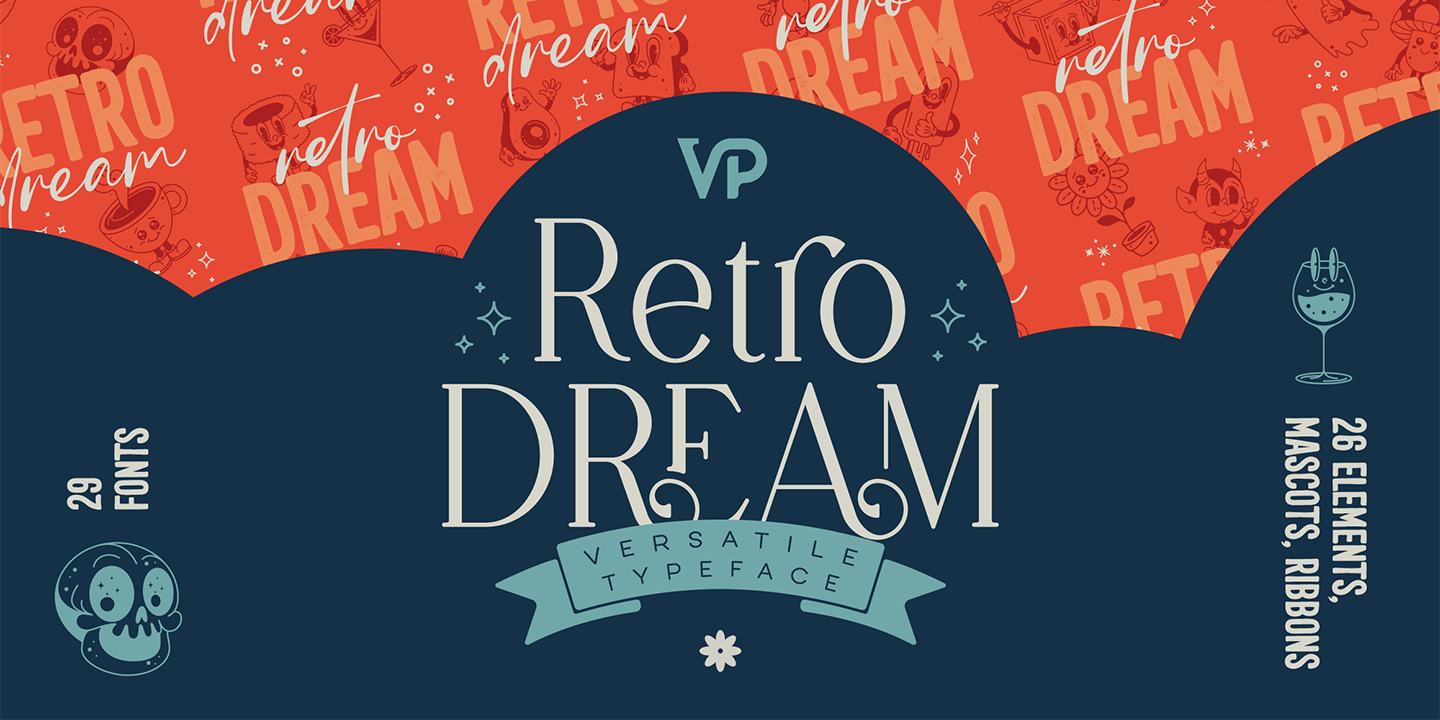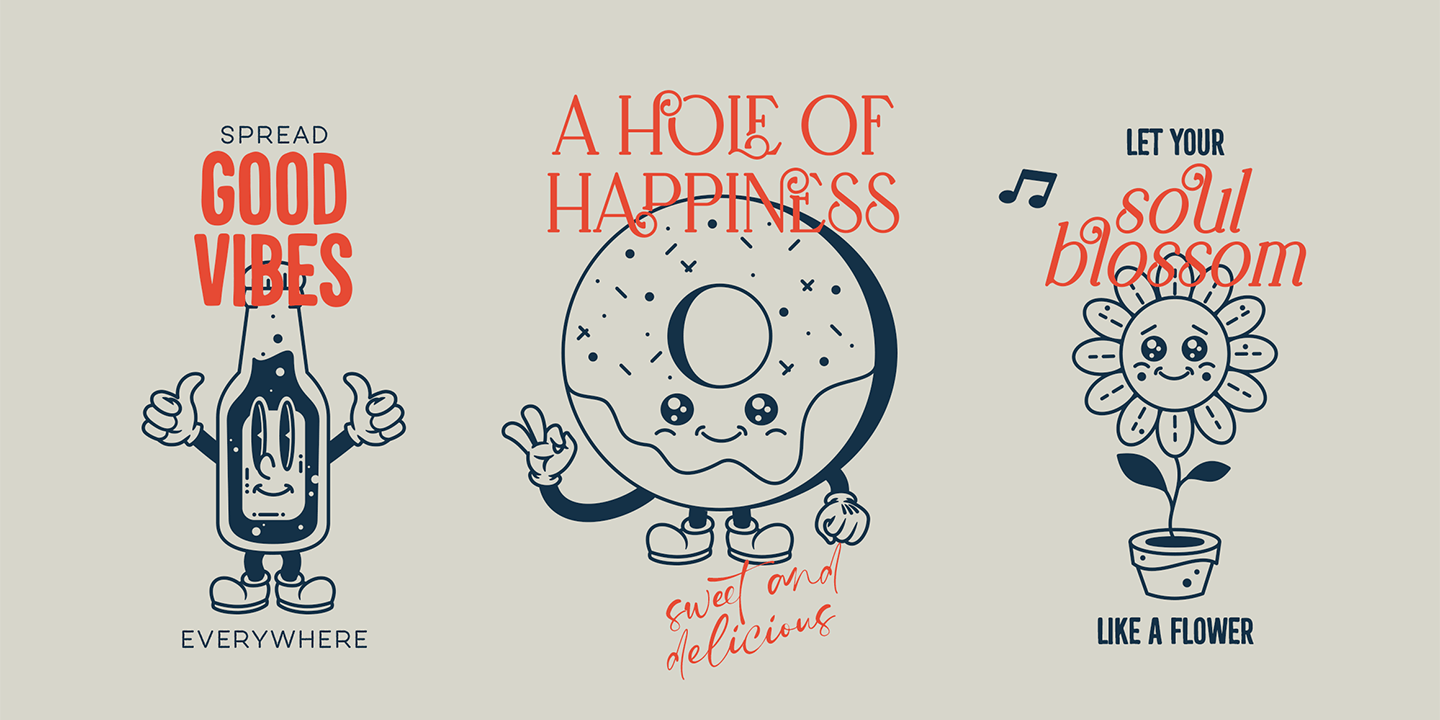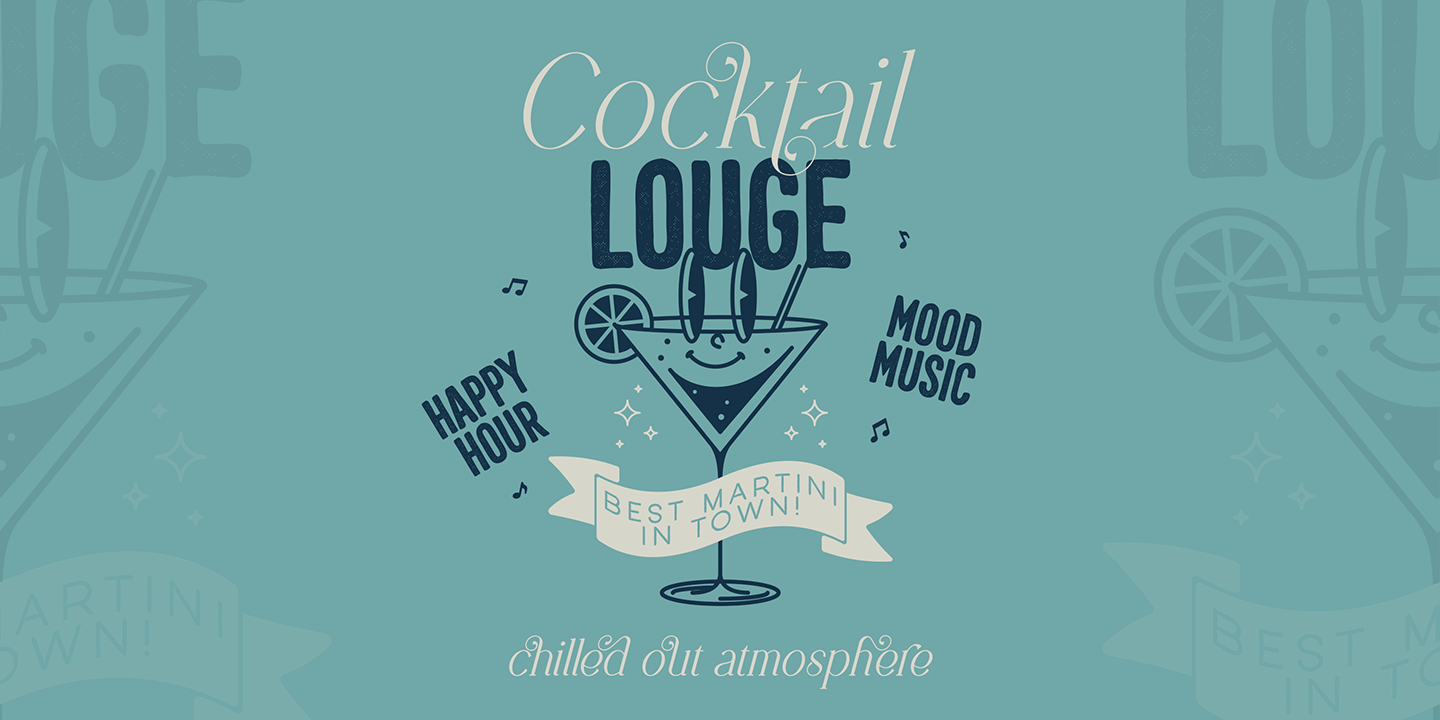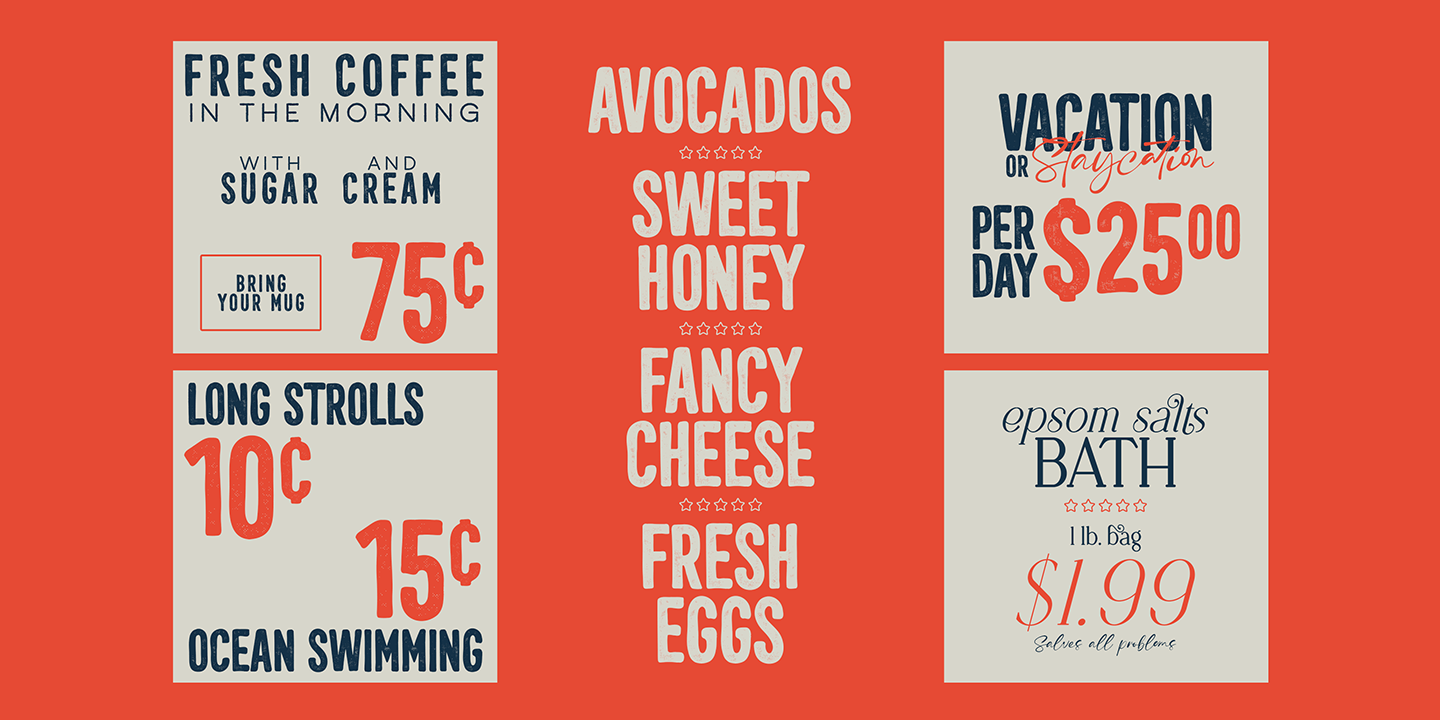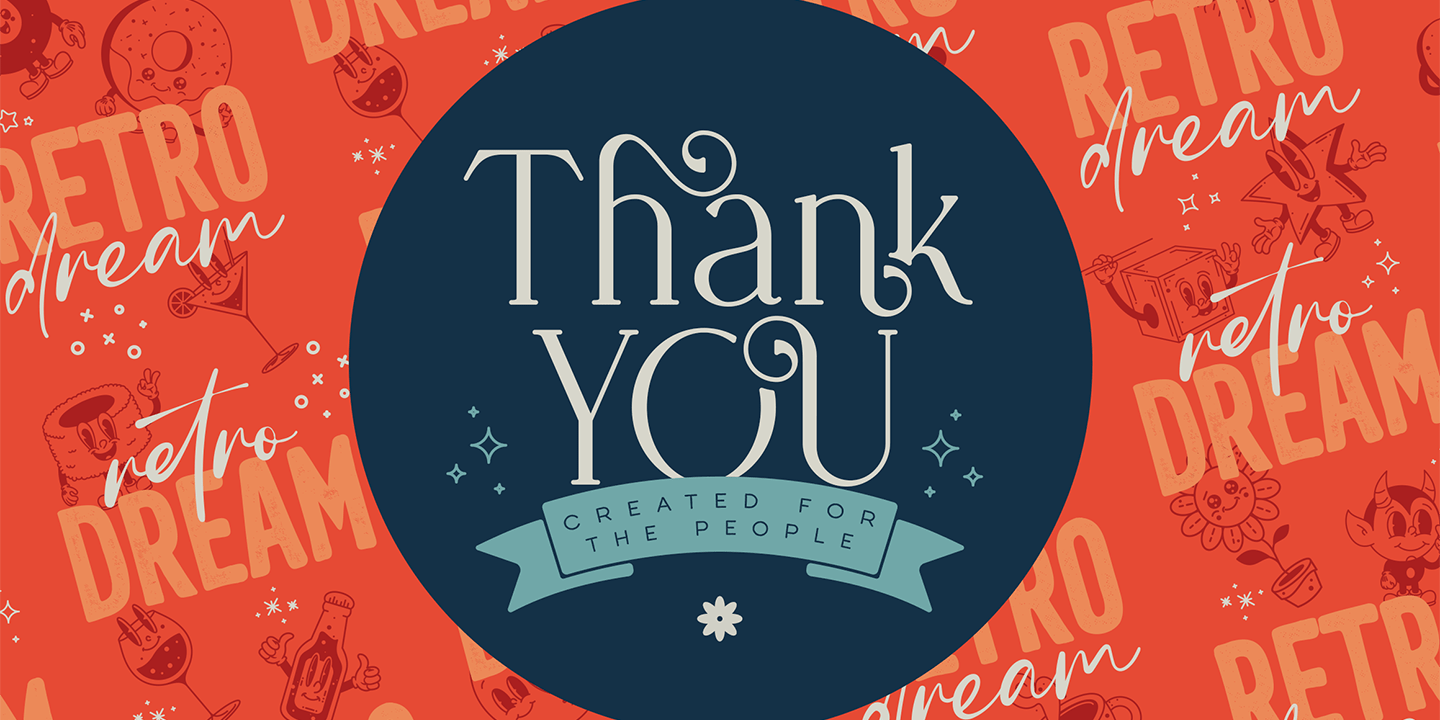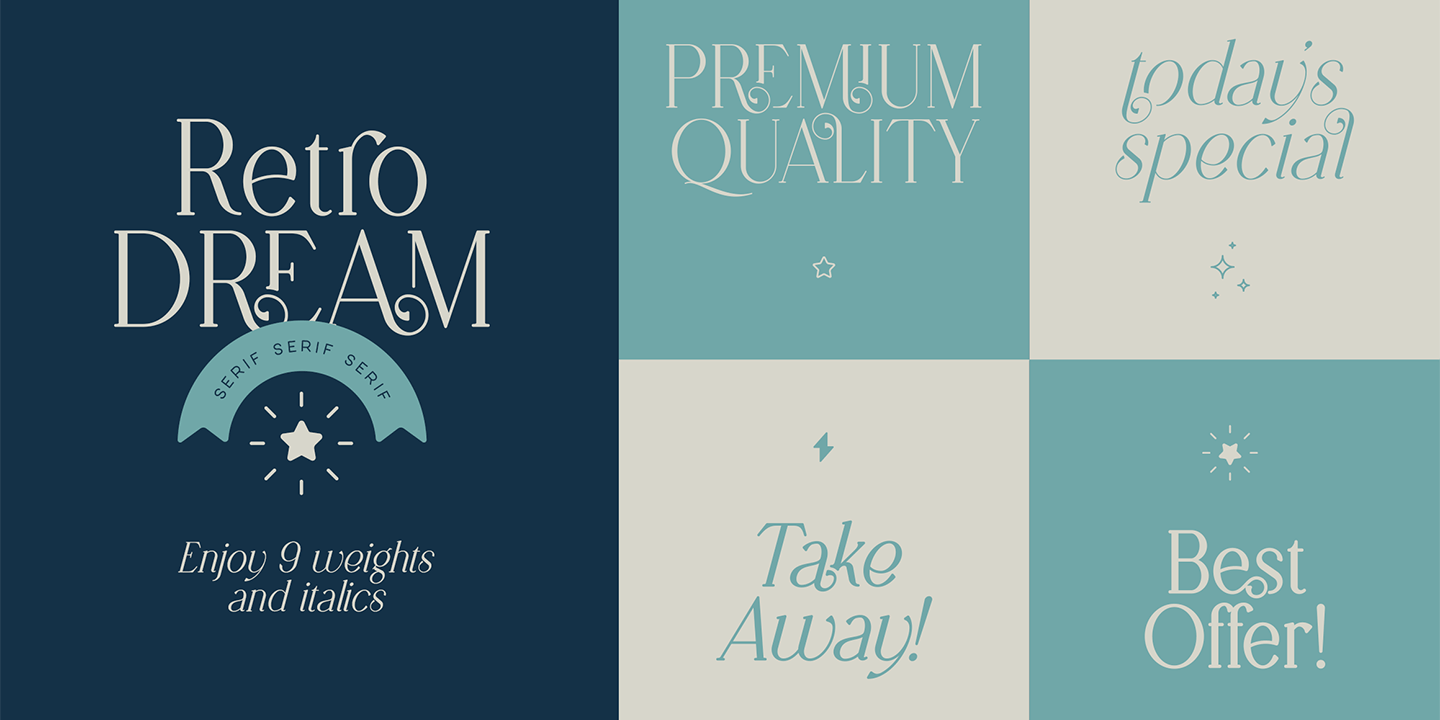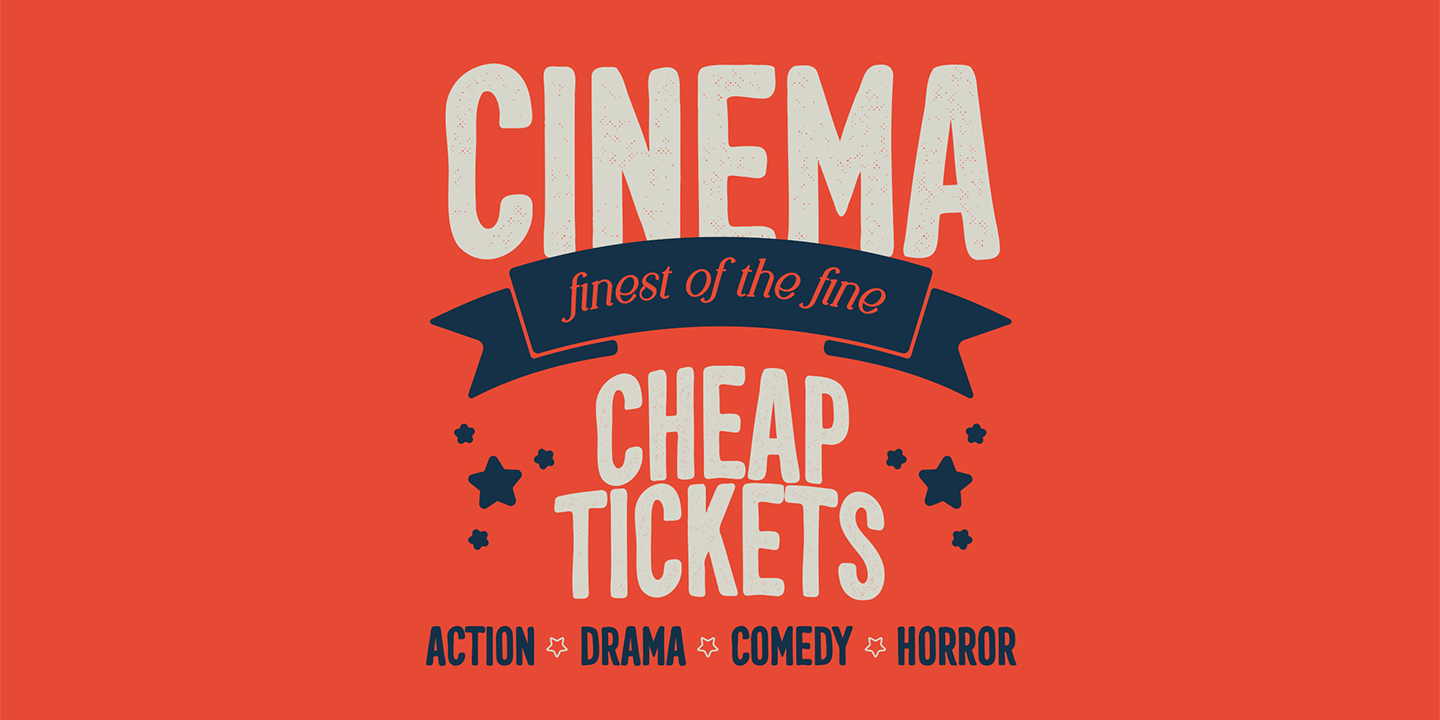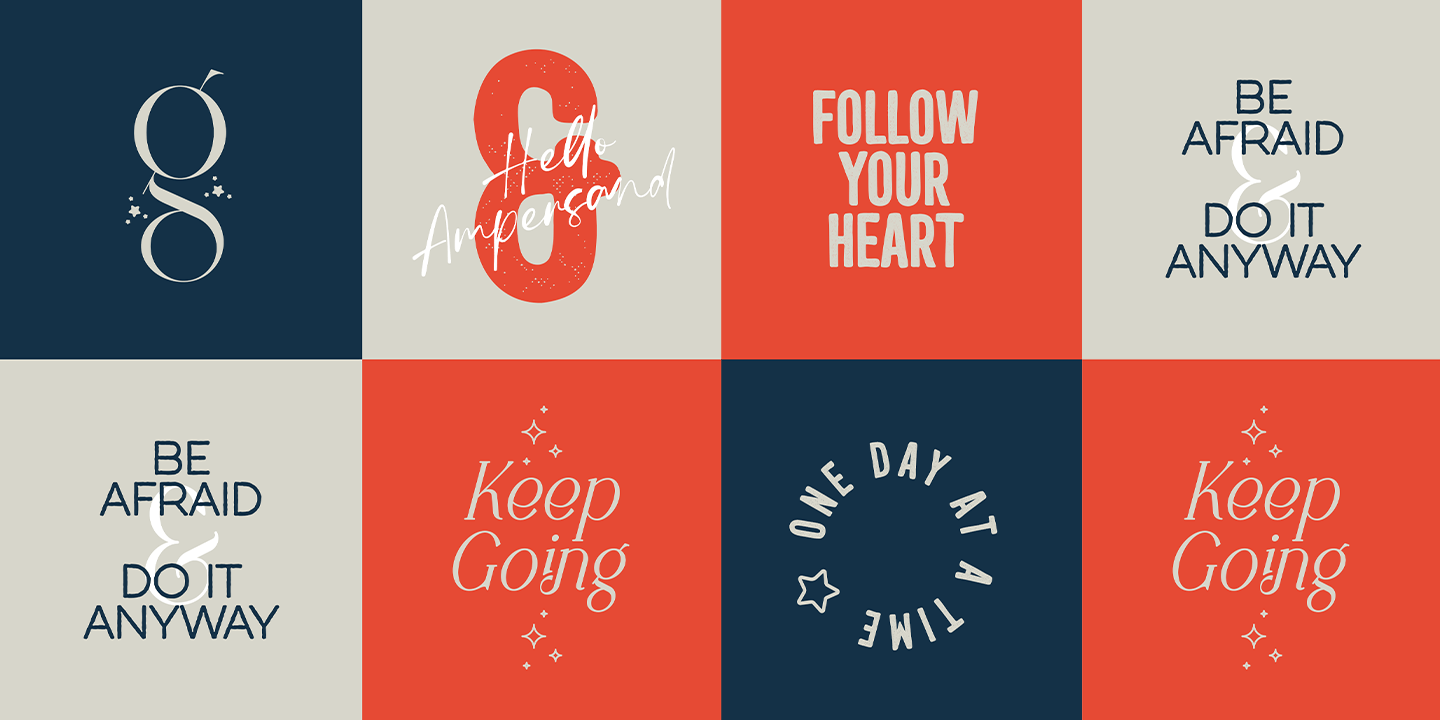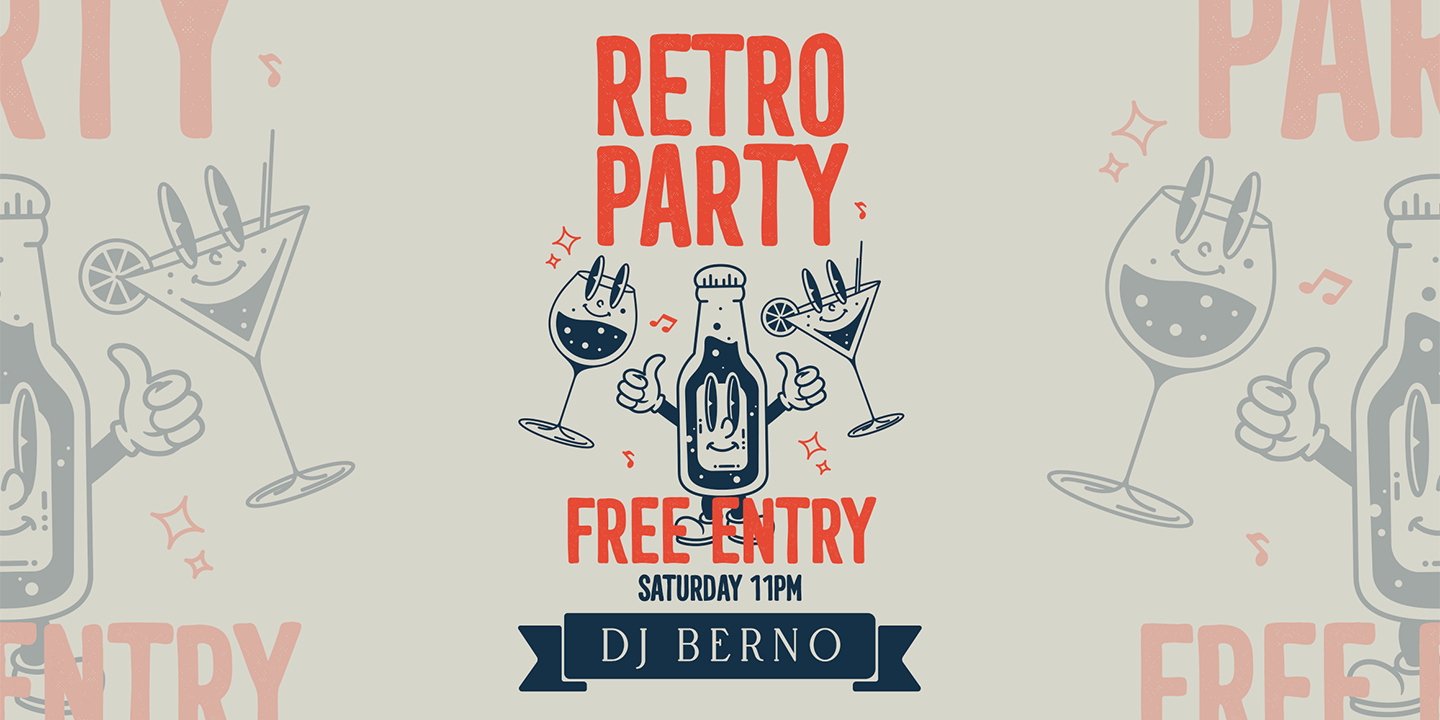
Retro Dream
Font Family by VP Creative Shop
Introducing Retro Dream - Versatile Typeface - 29 fonts
Retro Dream is a charmingly versatile typeface collection that beautifully captures the essence of nostalgia and creativity. It encompasses a rich array of 18 serif fonts, spanning 9 distinct weights along with their respective italics, ensuring a wide range of expression for any project. The collection is further enhanced with a display version available in both regular and italic, adding a striking visual appeal. Additionally, it includes unique dots and lines versions, also in regular and italic, providing delightful textures and patterns. The script variant adds a personal touch with its fluidity, while the sans rough offers a more raw, unrefined edge. Beyond these, Retro Dream surprises with 26 whimsical characters, 26 decorative ribbons, and 26 random elements, each adding a dash of whimsy and creative flair. This typeface collection is perfect for projects that require a blend of the past and present, delivering a vast spectrum of stylistic options.